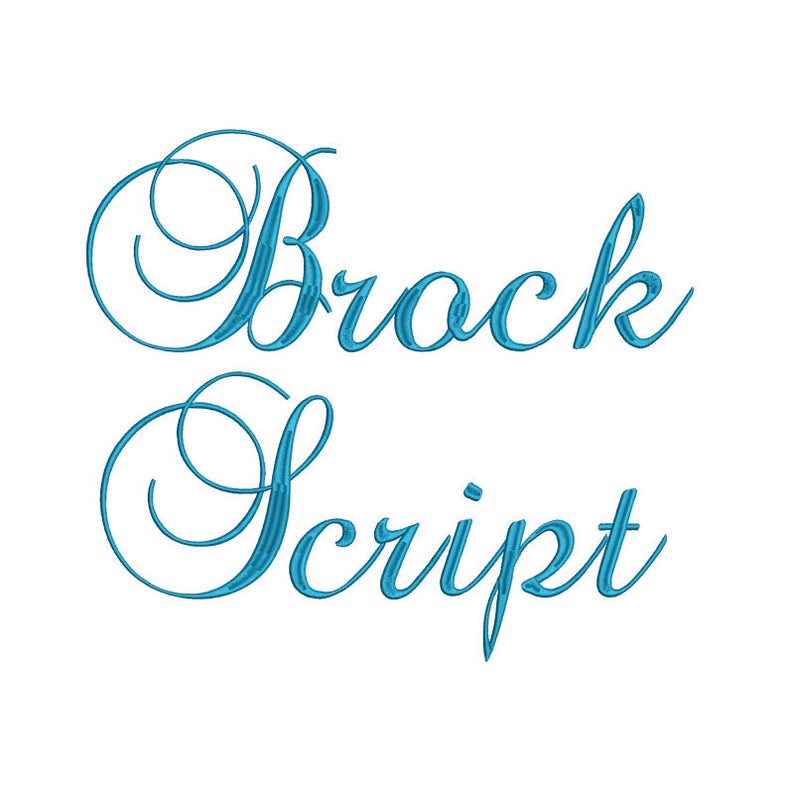
Brock Script Font
Brock Script Font - The font is licensed as free. Web brock script is a script, calligraphy font designed by dieter steffmann. The font is licensed as free. Web brock script is a script, calligraphy font designed by dieter steffmann. The font is free for both.
The font is licensed as free. Web brock script is a script, calligraphy font designed by dieter steffmann. Web brock script is a script, calligraphy font designed by dieter steffmann. The font is free for both.
The font is free for both. Web brock script is a script, calligraphy font designed by dieter steffmann. Web brock script is a script, calligraphy font designed by dieter steffmann. The font is licensed as free. The font is licensed as free.
Web brock script is a script, calligraphy font designed by dieter steffmann. The font is licensed as free. Web brock script is a script, calligraphy font designed by dieter steffmann. The font is free for both.
The font is licensed as free. Web brock script is a script, calligraphy font designed by dieter steffmann. The font is free for both. The font is licensed as free. Web brock script is a script, calligraphy font designed by dieter steffmann.
Brock Script font
The font is licensed as free. The font is free for both. Web brock script is a script, calligraphy font designed by dieter steffmann. Web brock script is a script, calligraphy font designed by dieter steffmann.
Web brock script is a script, calligraphy font designed by dieter steffmann. The font is licensed as free. The font is free for both. Web brock script is a script, calligraphy font designed by dieter steffmann. The font is licensed as free.
The font is free for both. Web brock script is a script, calligraphy font designed by dieter steffmann. The font is licensed as free. Web brock script is a script, calligraphy font designed by dieter steffmann. The font is licensed as free.
Web brock script is a script, calligraphy font designed by dieter steffmann. The font is licensed as free. Web brock script is a script, calligraphy font designed by dieter steffmann. The font is free for both.
The font is licensed as free. Web brock script is a script, calligraphy font designed by dieter steffmann. The font is free for both. Web brock script is a script, calligraphy font designed by dieter steffmann. The font is licensed as free.
Web brock script is a script, calligraphy font designed by dieter steffmann. The font is licensed as free. Web brock script is a script, calligraphy font designed by dieter steffmann. The font is free for both.
Web brock script is a script, calligraphy font designed by dieter steffmann. Web brock script is a script, calligraphy font designed by dieter steffmann. The font is free for both. The font is licensed as free. The font is licensed as free.
Web brock script is a script, calligraphy font designed by dieter steffmann. The font is licensed as free. Web brock script is a script, calligraphy font designed by dieter steffmann.